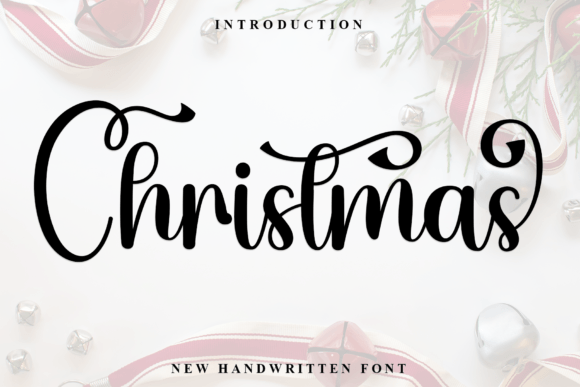
Introducing Christmas Font: A Delicate and Timeless Typeface for the Holiday Season
As the holiday season approaches, designers and crafters are on the lookout for the perfect font to add a touch of magic to their Christmas-themed projects. Look no further than Christmas Font, a delicate, elegant, and timeless typeface that’s sure to bring your designs to life. In this article, we’ll take a closer look at the features and benefits of Christmas Font, and explore how it can be used to create stunning holiday-themed designs.
A Delicate and Elegant Font for Christmas Designs
Christmas Font is a beautiful and well-crafted typeface that’s specifically designed to evoke the spirit of the holiday season. Its delicate and elegant characters are perfectly suited for a wide range of Christmas-themed designs, from holiday cards and invitations to festive posters and decorations. The font’s classic and timeless look ensures that it will remain a popular choice for years to come, making it a great investment for designers and crafters.
Beautifully Balanced Characters for Versatile Designs
One of the standout features of Christmas Font is its beautifully balanced characters. Each letter and symbol is carefully crafted to ensure that they’re perfectly proportioned and visually appealing. This makes it easy to pair Christmas Font with a wide range of other fonts and design elements, allowing you to create unique and eye-catching designs that showcase your creativity. Whether you’re designing a holiday card, a festive poster, or a set of Christmas-themed stickers, Christmas Font is the perfect choice.
PUA Coded for Easy Access to Glyphs and Ligatures
Christmas Font is PUA (Private Use Area) coded, which means that you can easily access all the amazing glyphs and ligatures that make this font so special. With PUA coding, you can use the font’s built-in features to create stunning designs that are full of personality and flair. Whether you’re a seasoned designer or a crafty DIY enthusiast, PUA coding makes it easy to get the most out of Christmas Font and create designs that truly shine.
Christmas Font is the perfect choice for designers and crafters who want to add a touch of holiday magic to their projects. Whether you’re creating professional designs for clients or working on personal projects, this font is sure to inspire your creativity and help you achieve your design goals. Here are just a few ways that designers and crafters can use Christmas Font:
- Holiday cards and invitations: Use Christmas Font to create beautiful and elegant holiday cards and invitations that are sure to impress.
- Festive posters and decorations: Add a touch of holiday cheer to your posters and decorations with Christmas Font’s delicate and elegant characters.
- Christmas-themed stickers and labels: Use Christmas Font to create adorable stickers and labels that are perfect for holiday gift-giving and decorating.
- Digital projects and crafts: Incorporate Christmas Font into your digital projects and crafts, such as holiday-themed planners, journals, and SVG files.
Tips for Using Christmas Font
To get the most out of Christmas Font, here are a few tips to keep in mind:
- Experiment with different colors and textures: Christmas Font looks great in a variety of colors and textures, so don’t be afraid to get creative and try out different combinations.
- Pair with other fonts and design elements: Christmas Font pairs well with a wide range of other fonts and design elements, so feel free to experiment and find the perfect combination for your design.
- Use the font’s built-in features: Take advantage of Christmas Font’s PUA coding to access the font’s built-in glyphs and ligatures, and use them to add a touch of personality to your designs.
Christmas Font is a beautiful and versatile typeface that’s perfect for designers and crafters who want to add a touch of holiday magic to their projects. With its delicate and elegant characters, beautifully balanced design, and PUA coding, this font is sure to inspire your creativity and help you achieve your design goals. Whether you’re creating holiday cards and invitations, festive posters and decorations, or Christmas-themed stickers and labels, Christmas Font is the perfect choice.